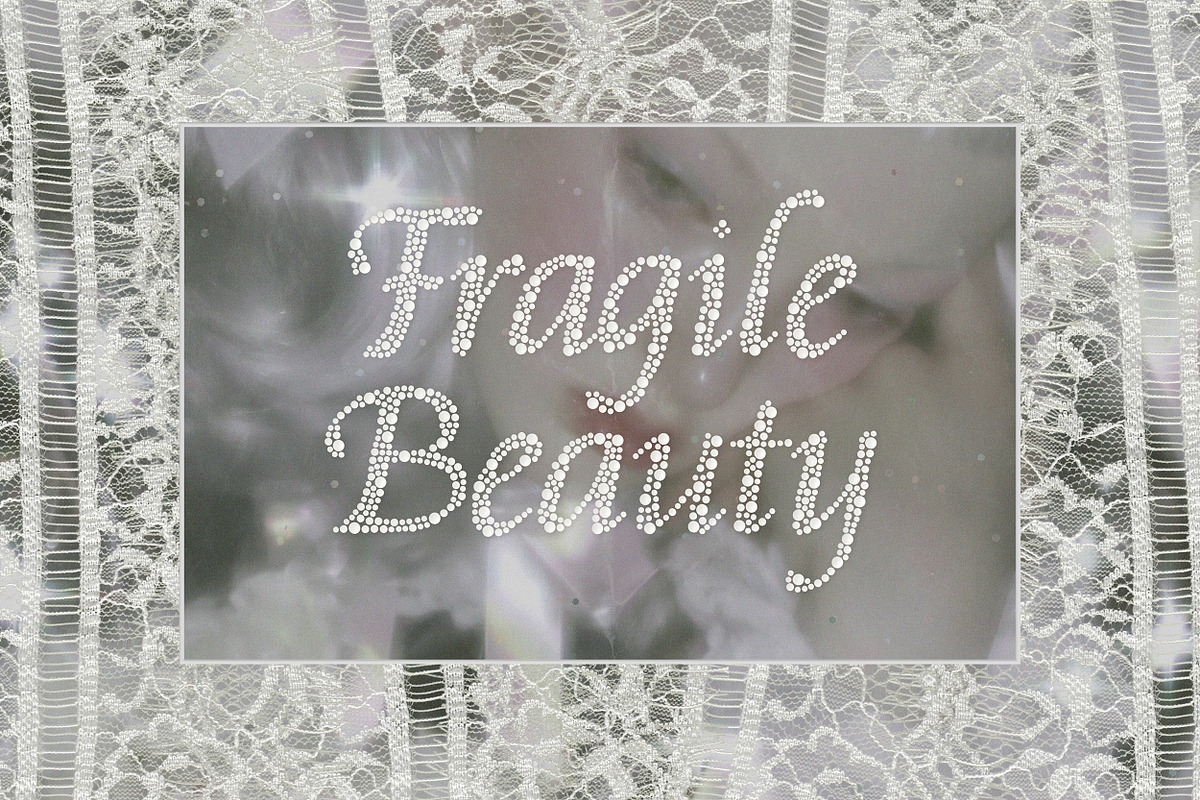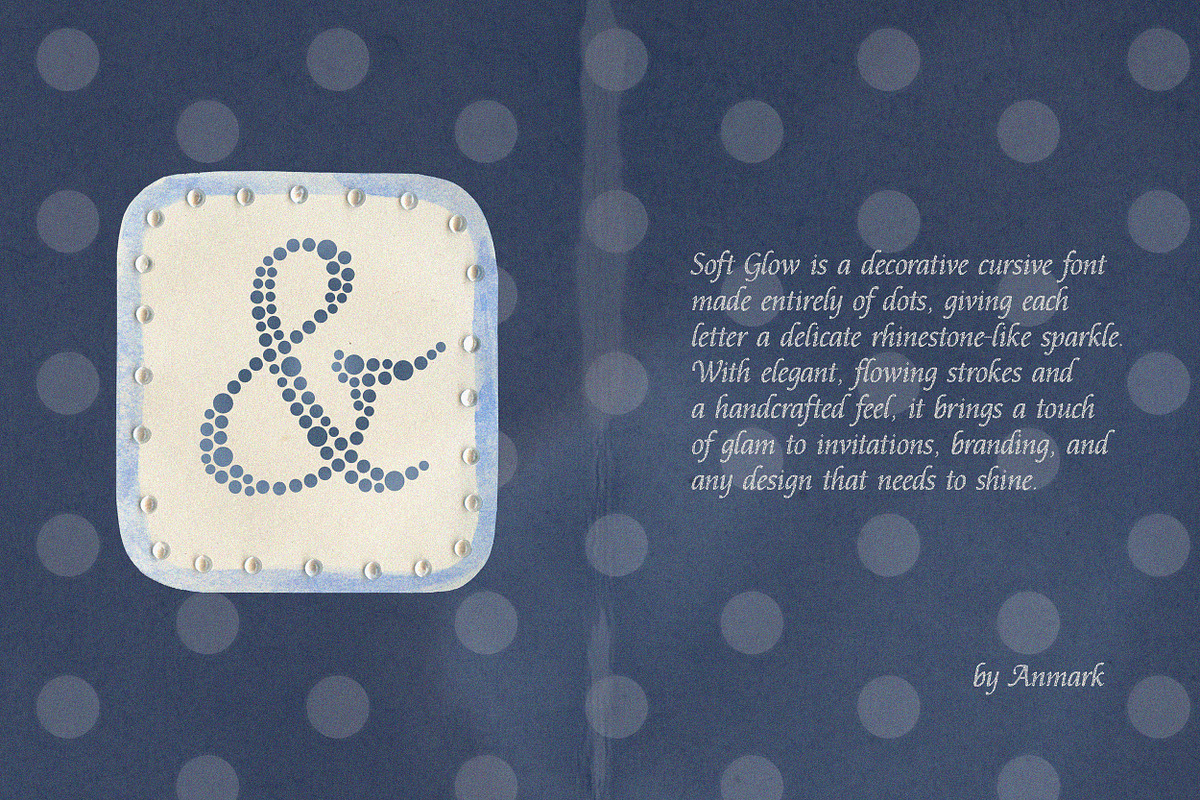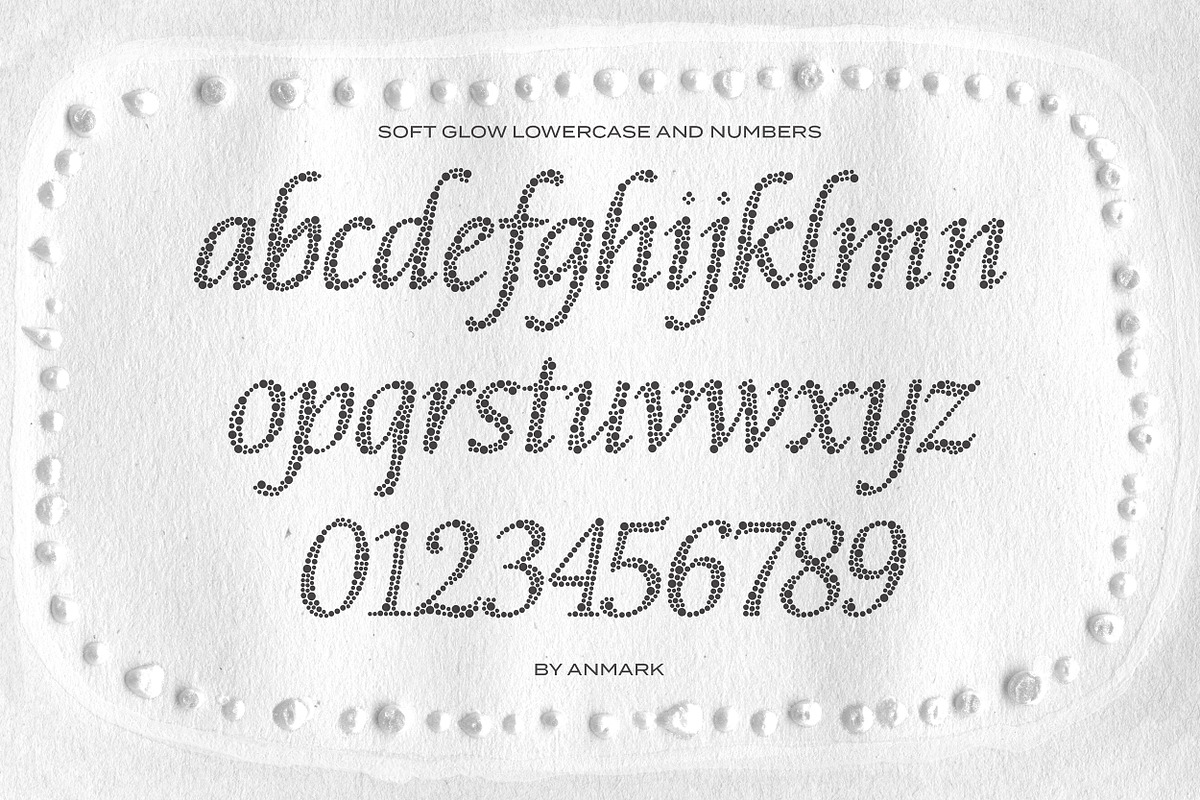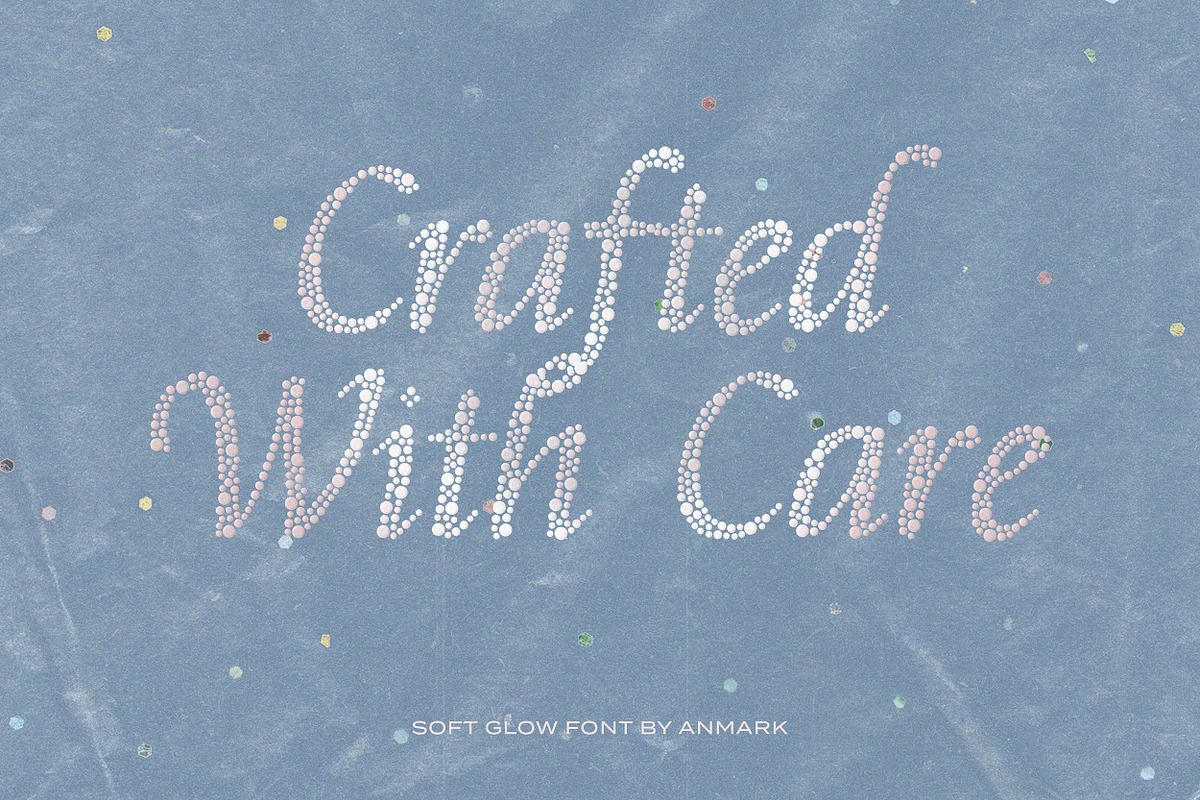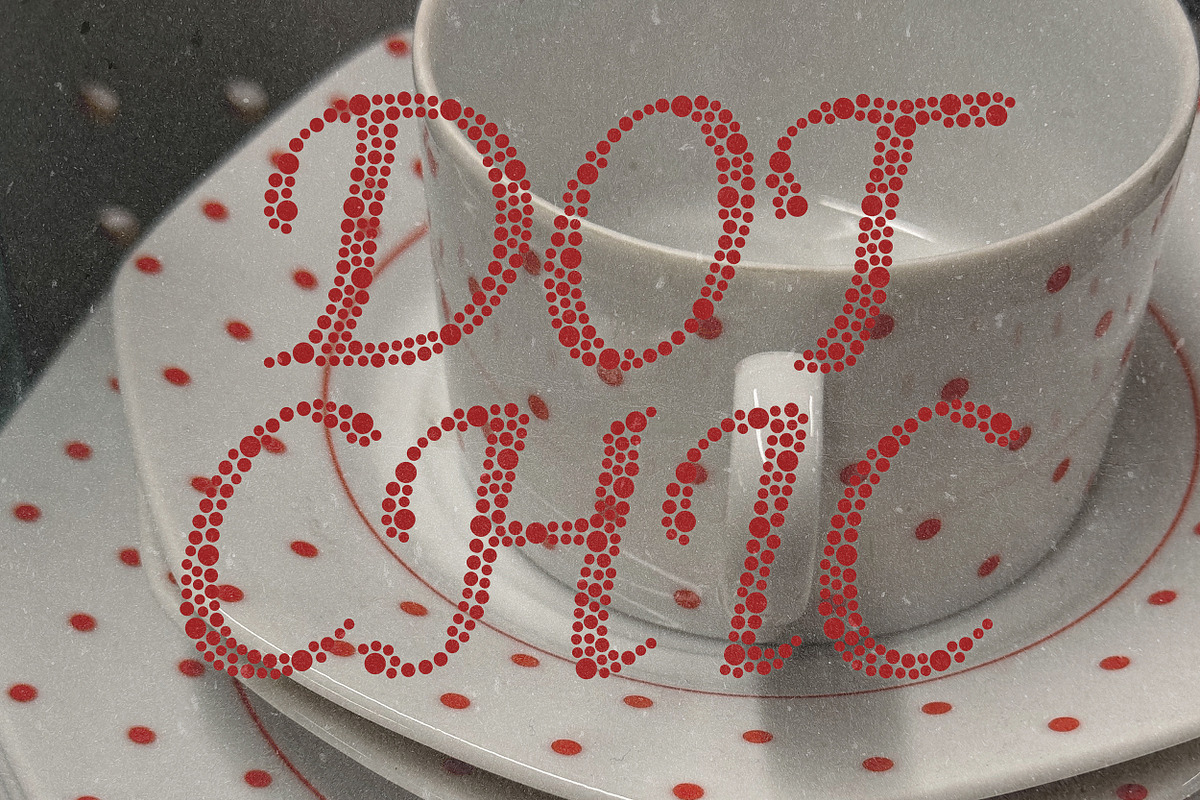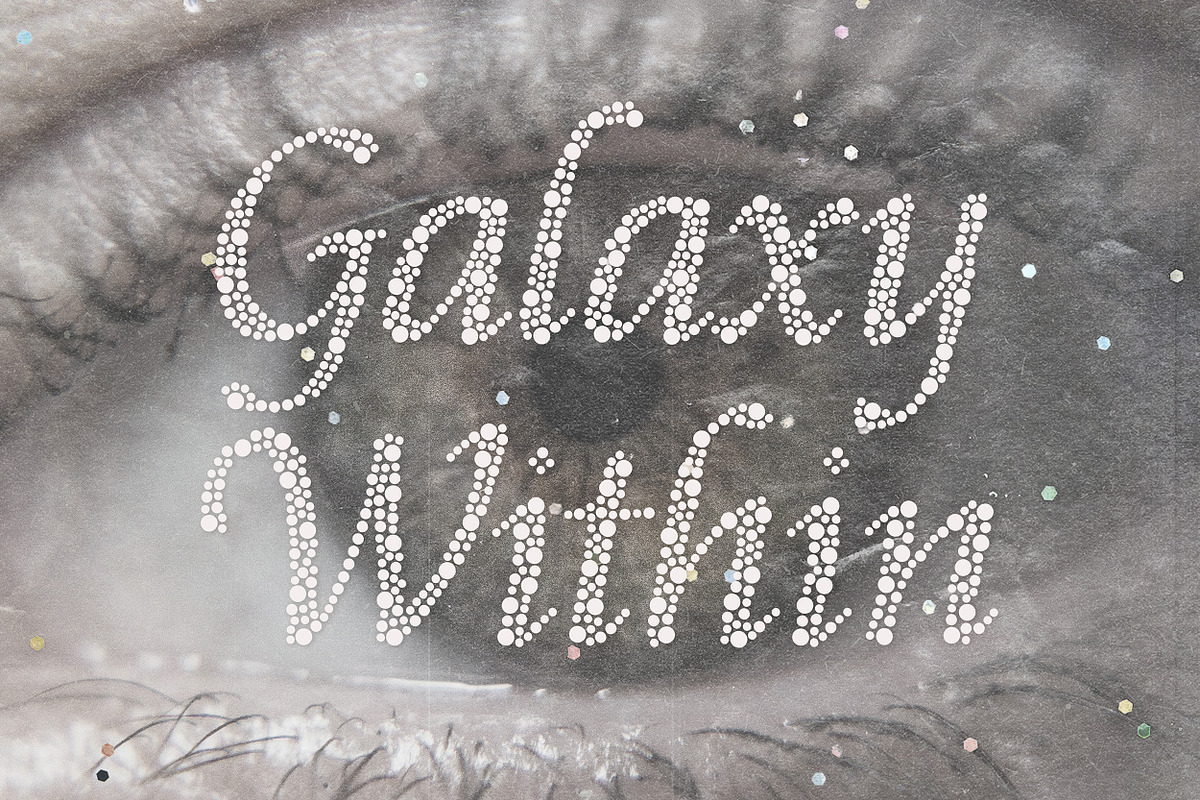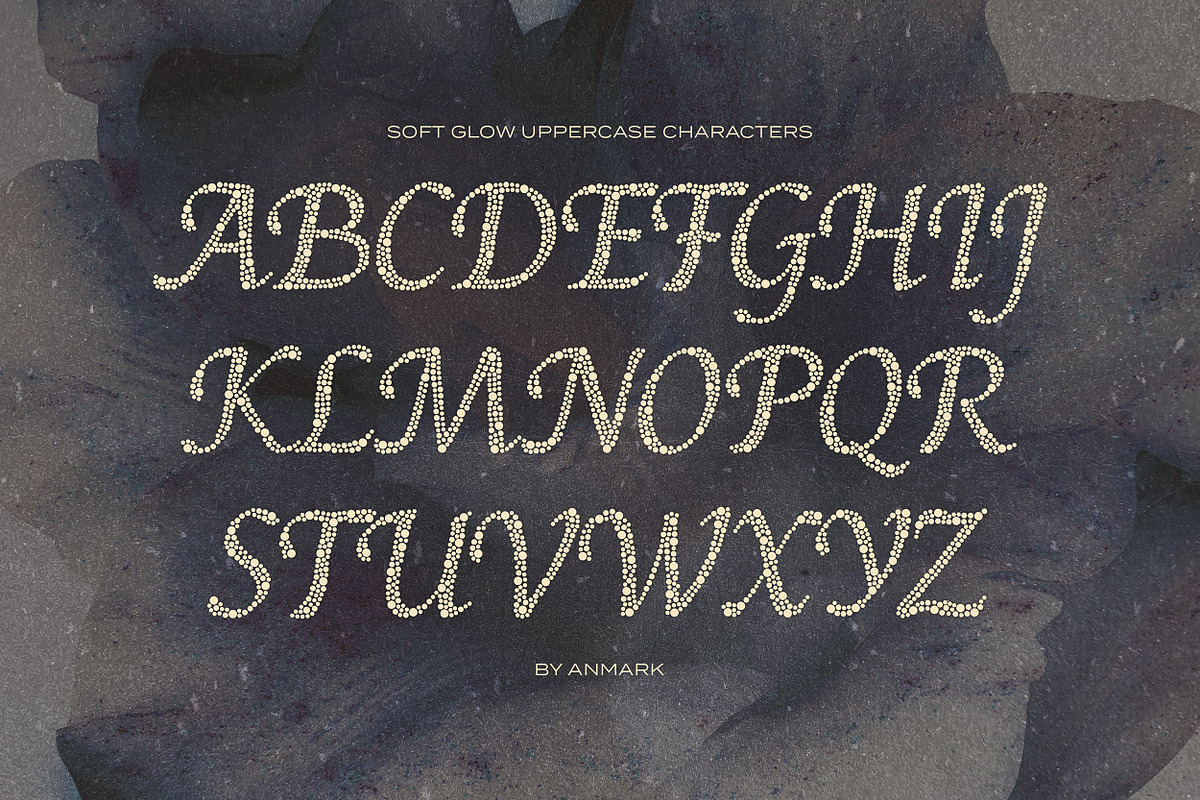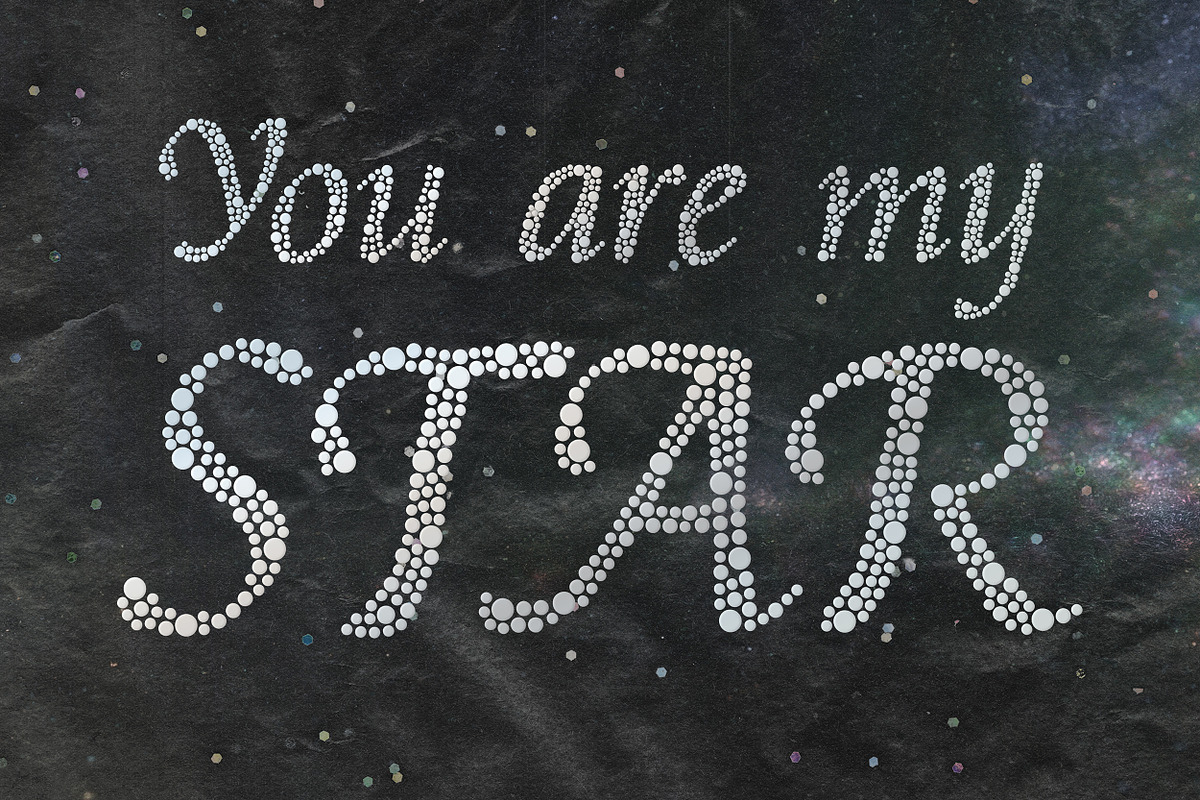
Soft Glow | Decorative Dots Font
Soft Glow is a decorative display font built entirely from delicate dots, each letter shaped like a row of tiny rhinestones catching the light. The flowing, hand drawn letterforms give it a soft, romantic character, while the dotted texture makes every word feel bold and eye catching at the same time.
This font works beautifully for wedding invitations, save the dates, boutique branding, greeting cards, packaging, and any design that calls for a touch of sparkle. It pairs uppercase and lowercase letters with graceful curves, so headlines and short phrases both come out looking polished and unique.